Using bold fonts effectively is one of the simplest yet most powerful ways to improve digital design. Bold typography instantly draws attention, creates hierarchy, and helps users understand what matters most on a screen. However, bold fonts are not just about making text thicker; they are about using emphasis strategically.
In digital design, where users scroll quickly and skim content, bold fonts play a critical role in guiding the eye and strengthening communication. This article explores creative and practical ways to use bold fonts in digital design without overwhelming the layout.
Why Bold Fonts in Digital Design Matter
Bold Typography Improves Visual Hierarchy
Bold fonts help designers communicate faster and more clearly. By increasing weight, bold fonts separate:
- Headlines from body text
- Key messages from supporting information
- Calls to action from surrounding content
This hierarchy makes interfaces easier to scan and understand.
Bold Fonts Enhance User Experience
When used thoughtfully, bold typography reduces cognitive load and helps users find information quickly, especially on websites and mobile screens.
Creative Ways to Use Bold Fonts in Digital Design
There are many effective ways to use bold fonts beyond basic headings.
1. Use Bold Fonts for Strong Headlines
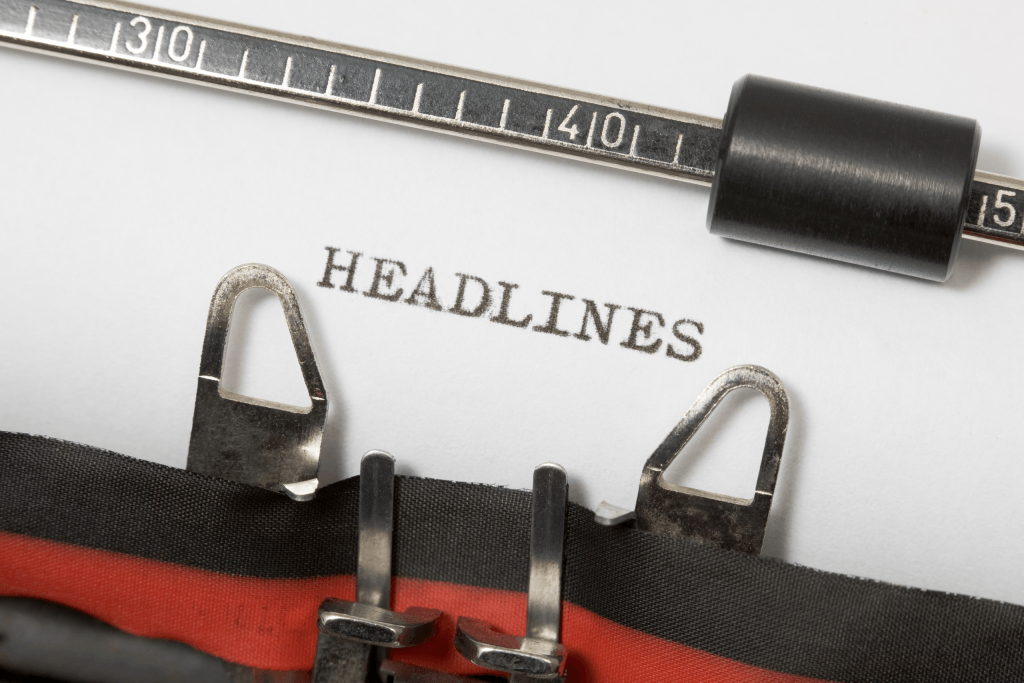
Headlines are the most common and effective place for bold fonts.
Why Bold Headlines Work
Bold headlines:
- Grab attention immediately
- Communicate importance
- Set the tone of the content
In blogs, landing pages, and apps, bold headlines help users decide whether to keep reading.
2. Highlight Key Phrases with Bold Typography
Bold fonts can be used selectively within body text.
How to Use Bold Emphasis Correctly
Use bold to:
- Emphasize keywords
- Highlight important instructions
- Draw attention to the benefits
Avoid bolding entire paragraphs, as this reduces readability.
3. Combine Bold Fonts with Font Pairing
Bold fonts work best when paired with lighter styles.
Effective Font Pairing Techniques
- Bold serif headline + regular sans-serif body
- Bold sans-serif title + light-weight supporting text
- Same font family with different weights
Font pairing improves balance while keeping emphasis clear.
4. Use Bold Fonts for Calls to Action
Calls to action (CTAs) should never be missed.
Why Bold Fonts Improve CTAs
Bold typography makes buttons and links:
- More visible
- Easier to recognize
- More likely to be clicked
This is especially important in conversion-focused designs.
5. Create Contrast with Bold Fonts and Color
Bold fonts become even more effective when combined with contrast.
Contrast Techniques
- Bold text on light backgrounds
- Bold fonts paired with neutral colors
- High contrast between bold and regular text
Contrast ensures that bold typography stands out without relying on size alone.
6. Use Bold Fonts in Minimalist Layouts
Minimalist designs benefit greatly from bold typography.
Bold Fonts as Visual Anchors
In clean layouts, bold fonts:
- Act as focal points
- Replace decorative elements
- Create a strong visual identity
This approach is popular in modern web and mobile design.
7. Use Bold Fonts for Navigation and UI Elements
Bold fonts help users navigate interfaces.
UI Elements That Benefit from Bold Typography
- Menu labels
- Section titles
- Active navigation states
Using bold fonts in navigation improves clarity and usability.
8. Experiment with Bold Fonts in Typography Hierarchy
Hierarchy is not only about size.
Bold Weight as a Hierarchy Tool
Designers can use:
- Bold for primary text
- Medium weight for secondary text
- Regular or light for supporting content
This creates structure without overcrowding the layout.
9. Use Bold Fonts with Whitespace
Whitespace amplifies bold typography.
Why Spacing Matters
Bold fonts need space to breathe. Adequate spacing:
- Improves readability
- Enhances elegance
- Prevents visual clutter
Whitespace makes bold typography feel intentional rather than aggressive.
10. Bold Fonts in Responsive Design
Digital designs must adapt to different screen sizes.
Responsive Typography Tips
- Test bold fonts on mobile screens
- Adjust font size and line height
- Avoid overly heavy weights on small displays
Responsive testing ensures bold fonts remain effective across devices.
Practical Examples of Bold Fonts in Digital Design
Bold fonts are widely used across:
- Landing pages
- Mobile apps
- Editorial websites
- Social media graphics
They help deliver messages clearly and confidently.
Final Thoughts on Using Bold Fonts Creatively
Using bold fonts creatively in digital design is about balance, intention, and clarity. When applied thoughtfully, bold typography strengthens hierarchy, improves user experience, and enhances visual impact.
By understanding how and when to use bold fonts, through headlines, CTAs, contrast, and hierarchy, designers can create digital experiences that feel confident, modern, and easy to navigate. Bold typography, when used with care, becomes a powerful storytelling tool in digital design.